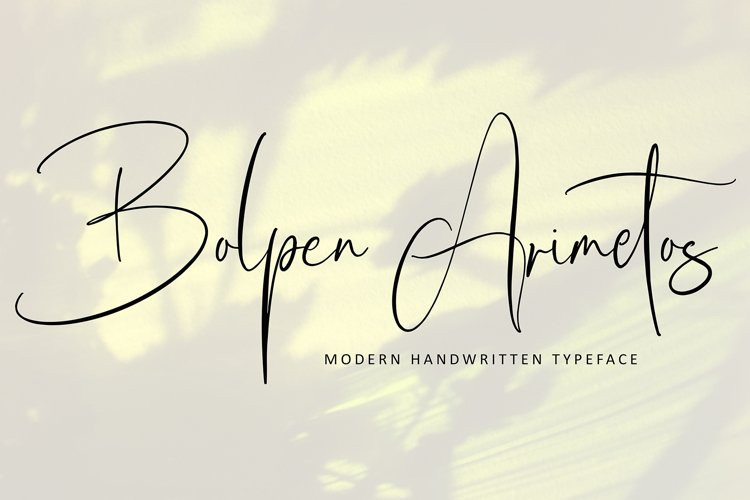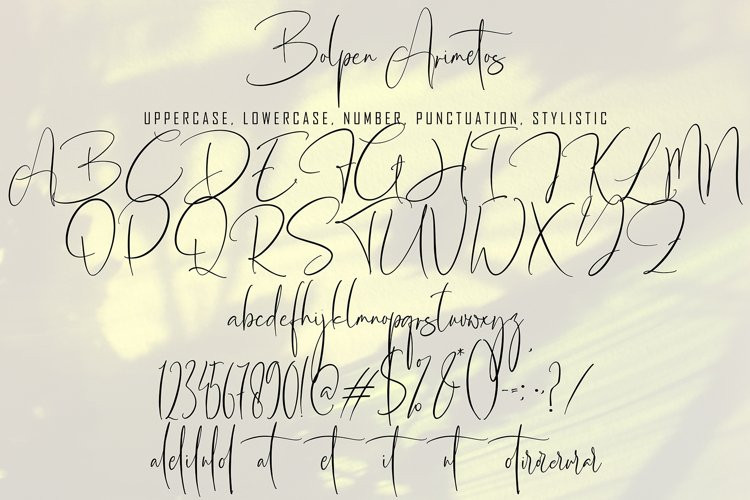
Bolpen Amiretos Font
Bolpen Amiretos FontBolpen Arimetos font with new style, this font will perfect for many different project ex: quotes, logo, blog header, poster, banding, letter, invitation, stationery, etc…